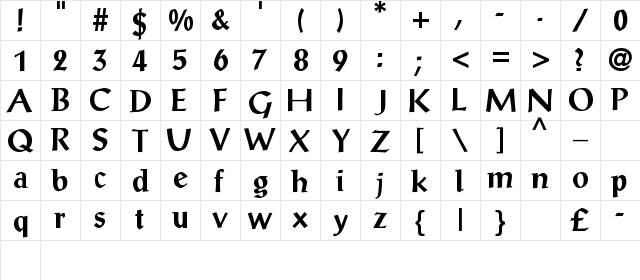
Monclova Regular
Design Context for Monclova Typeface
Monclova is a composed and adaptable typeface that performs quietly and consistently across a wide range of design contexts.